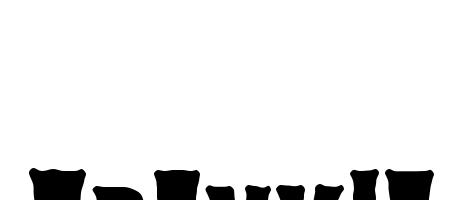
Frankie
Frankie: A bold, playful display font. Each letter is uniquely shaped, with jagged, irregular edges that give it a slightly monstrous, almost cartoonish feel. The letters are chunky and wide, with varying heights, creating a dynamic, energetic look, perfect for titles or branding needing a touch of edgy fun.